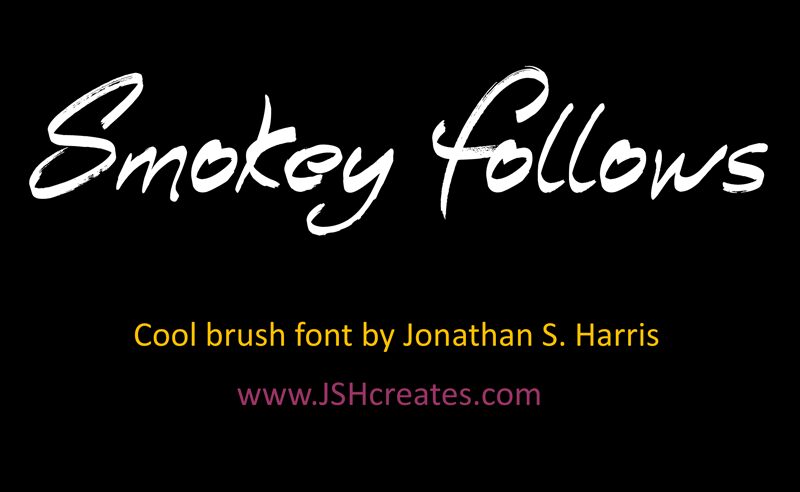
Smokey Follows
Smokey Follows is the perfect font for projects that need an eye-catching touch of creativity. This brush font, designed by JSH creates, has a unique and edgy style that will make your designs stand out from the crowd. Its bold strokes and irregular shapes make it ideal for branding, packaging, posters, flyers, and social media graphics. Smokey Follows is available in semi-bold and regular widths, giving you flexibility in your design choices. With its playful yet sophisticated vibe, this font is perfect for any project that needs a little extra personality.